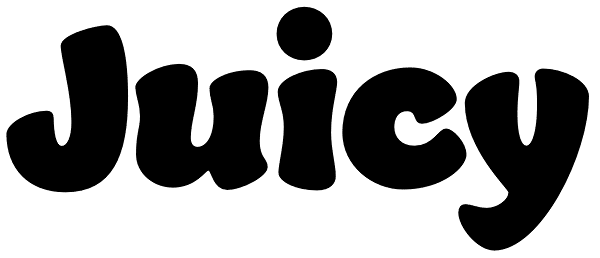
Juicy
A font this friendly, welcoming, and easy-to-read is a treat for the eyes. Juicy draws you in with its thick, curvy strokes, jaunty counters, and a whimsical variety of counterforms – no two are alike, even within a single m or w. Need even more...